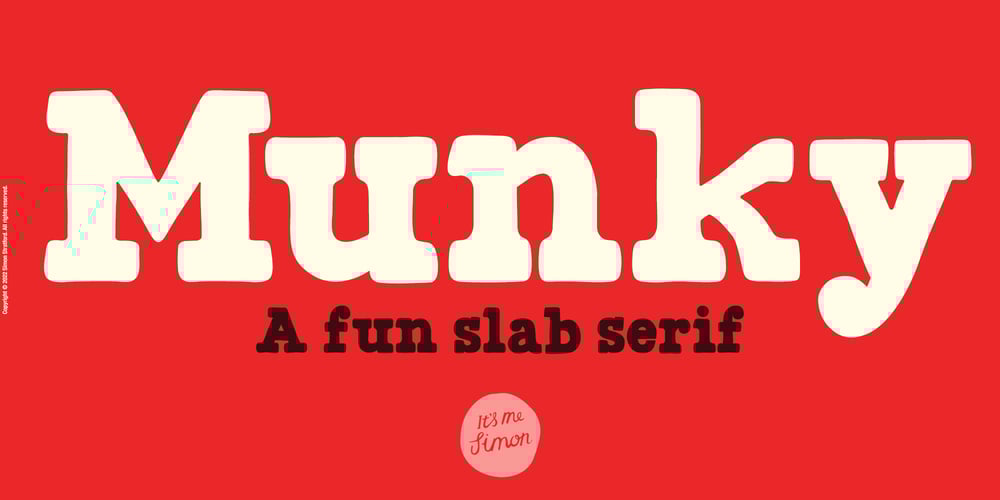
Munky
Munky font
Munky Font Family was designed by Simon Stratford and published by It’s me Simon. Munky contains 1 styles and family package options. Munky, a big bowl full of slab serif goodness. It’s got a cheeky, playful look with large, heavy serifs. Its shapes have a few kinks here and there. I would say that adds to its charm—and it does.It’s great for headlines and titles but is also very legible in sentence case.It works great for branding and packaging, books, invitations and anything where you want a laid-back vibe—without being too childish.If the font were a celebrity, it would be more John Candy than John Malkovich.